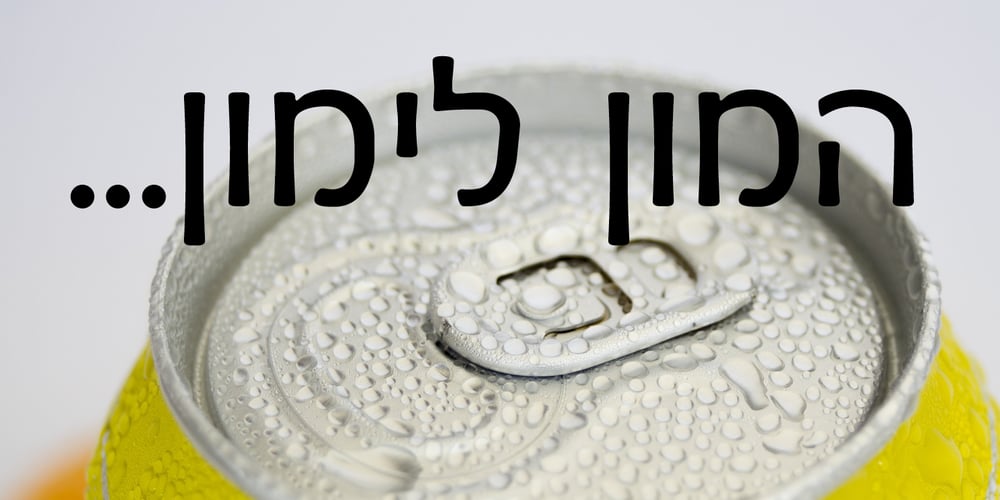
Takanon MF
Takanon MF font
Takanon MF Font Family was designed by Zvika Rosenberg and published by Masterfont. Takanon MF contains 3 styles and family package options. A practical font family with 3 weights for all your needs: headlines, body text, signage etc. So elegant and so classic. High legibility at small sizes.